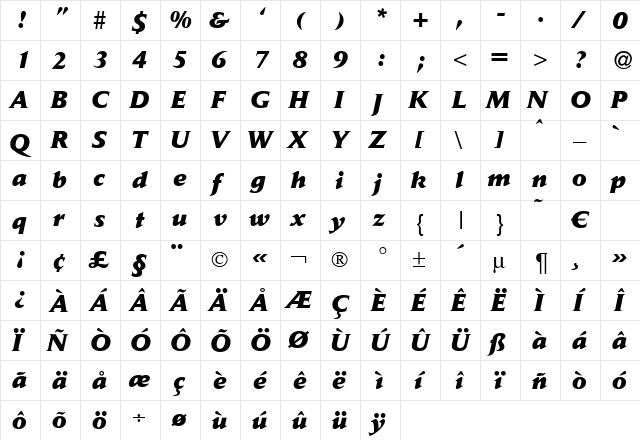
DaitonaBlackDB BoldItalic
Design Context for DaitonaBlackDB Typeface
DaitonaBlackDB takes a measured approach to typography — its balanced proportions and neutral character make it a reliable workhorse for both digital and print work. The slanted form adds forward momentum and visual energy. Its bold stroke weight gives it real presence on the page.